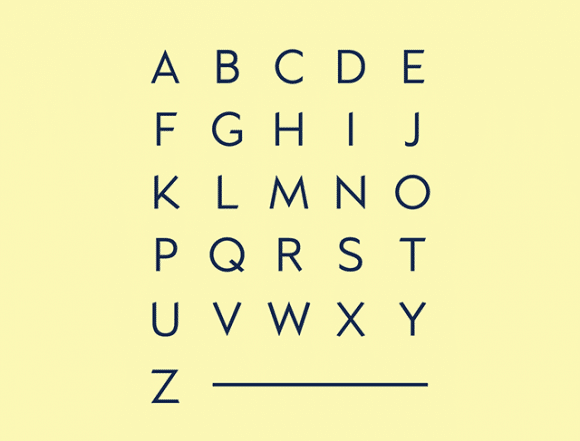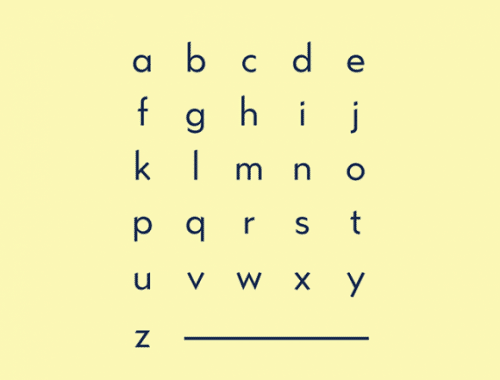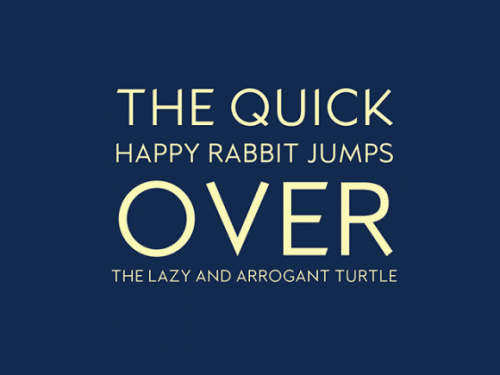
“Kano” is an uppercase and lowercase display typeface, with a geometric structure and a sharp edge point, making it ideal for logos, posters, and other typographic works.
- Designer: Frederick Lee